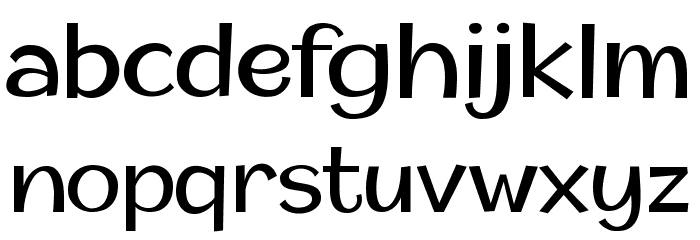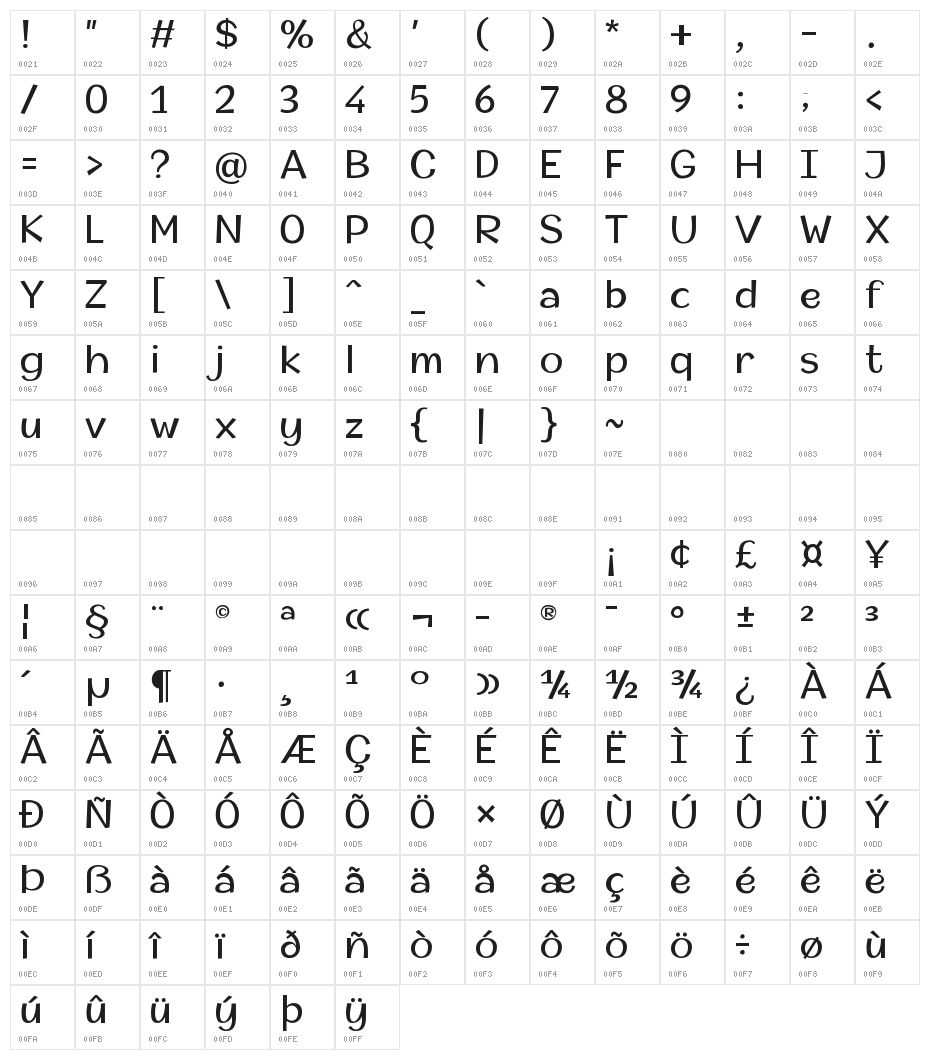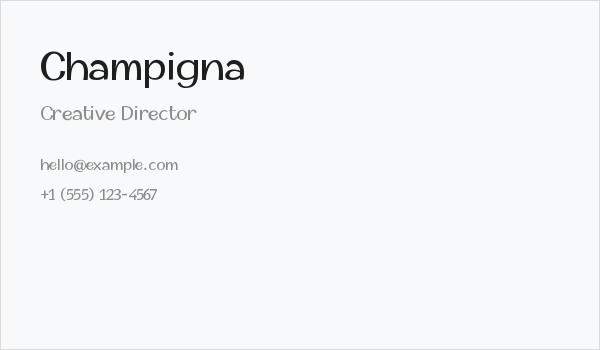
Champigna Font
This font features a clean and modern sans-serif style with a slightly playful touch. The characters are well-proportioned, with a consistent stroke width that gives it a uniform appearance. The uppercase letters are bold and assertive, while the lowercase letters maintain a friendly and approachable feel. The numerals are clear and easy to read, making them suitable for various applications. Special characters are included, adding versatility to the font's use. Overall, this font balances professionalism with a hint of creativity, making it suitable for a wide range of design projects.
A modern sans-serif font with a clean, uniform appearance and a playful touch.
- Font: Champigna
- Proposed Projects: Ideal for branding, advertising, web design, and editorial projects where a modern and approachable look is desired.